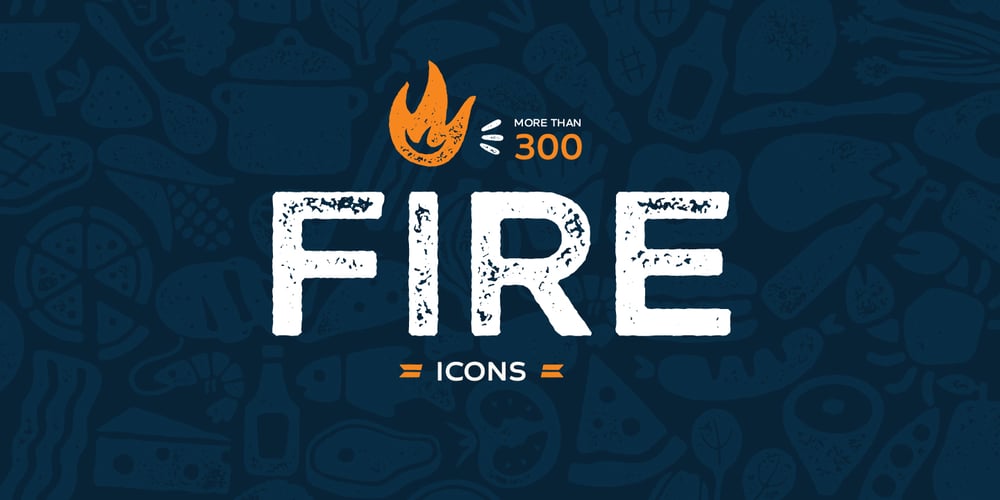
Zing Sans Rust Font Family was designed by Svetoslav Simov, Plamen Motev and published by Fontfabric. Zing Sans Rust contains 29 styles and family package options. Zing Sans Rust is a textured handmade typeface with wide and calm proportions perfect for short text in small sizes, but also pleasant enough to use as an isolated display headline. It has a distinctive geometric spirit, smoothed with handmade details such as a slightly slanted axis visible in the terminals. The combination of Zing Script TM and Zing Sans TM brings a balanced completeness. Zing Goodies As a dessert, we serve you Zing GoodiesTM that tops off the whole package, making it an extraordinary delicacy! It has 4 basic forms — Bakery, BBQ, Banners, and Words — with two styles each, which contain plenty of adorable icons for any food and taste, elaborate banners, ribbons, and ornaments, and even a beautiful selection of useful words to accentuate your design.